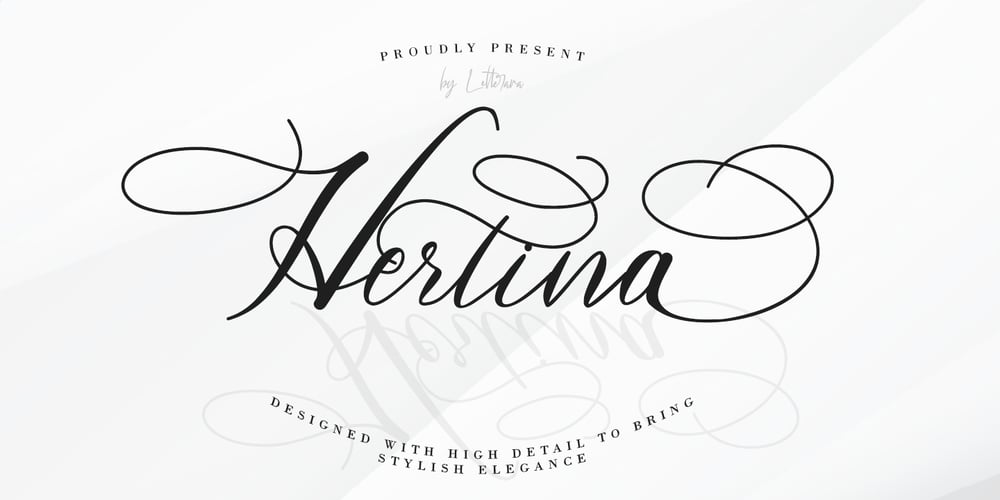
Hertina Font Family was designed by Thomas Aradea and published by Letterara. Hertina contains 2 styles and family package options. Hertina designed with high detail to bring a stylish elegance. This font is for those who are in need of an elegant and appropriately modern calligraphy script.